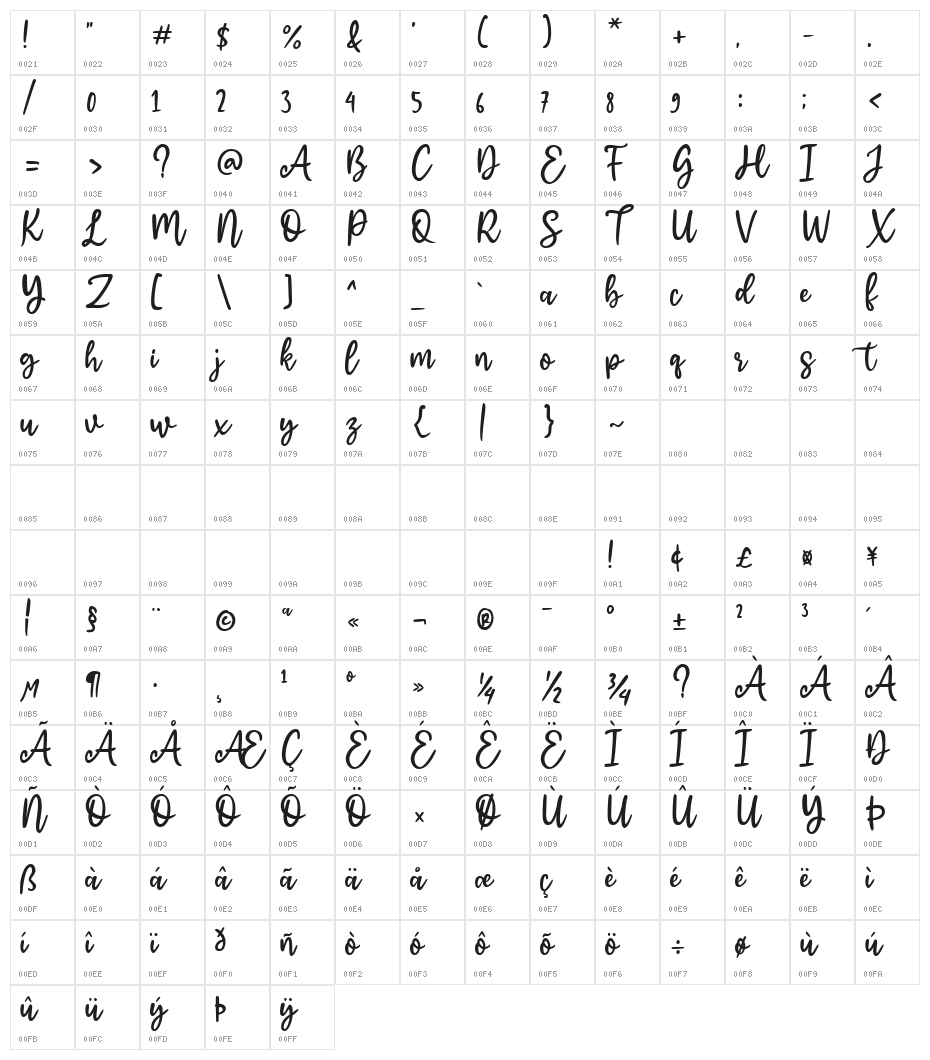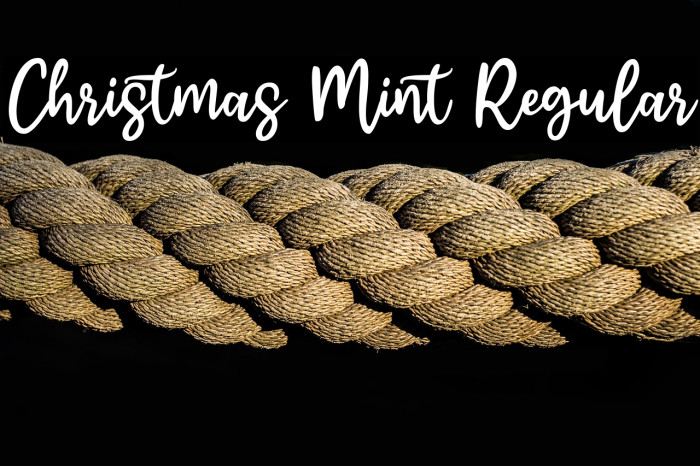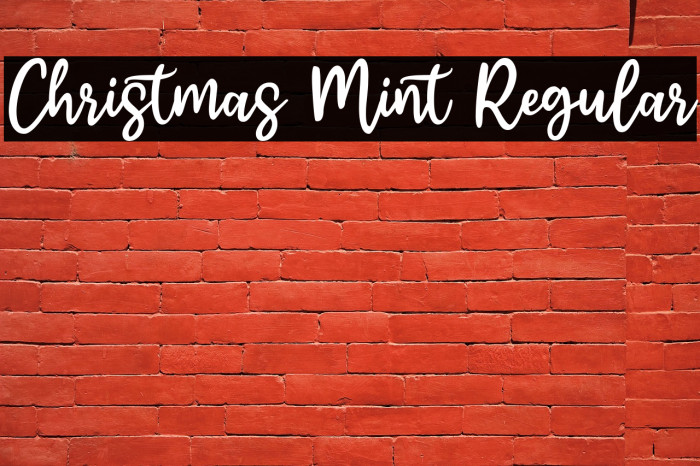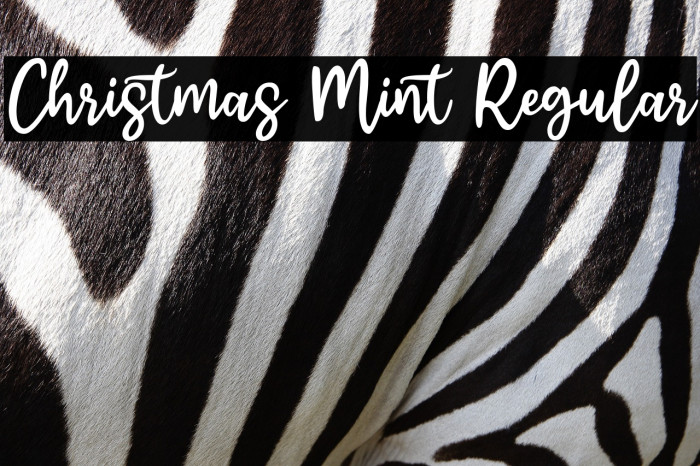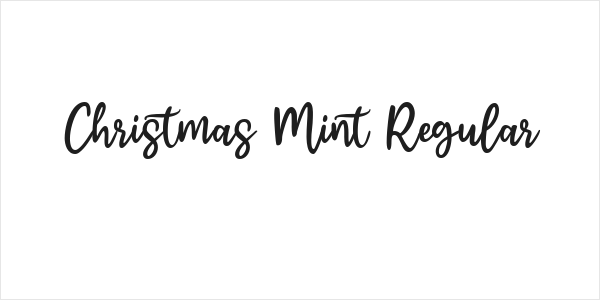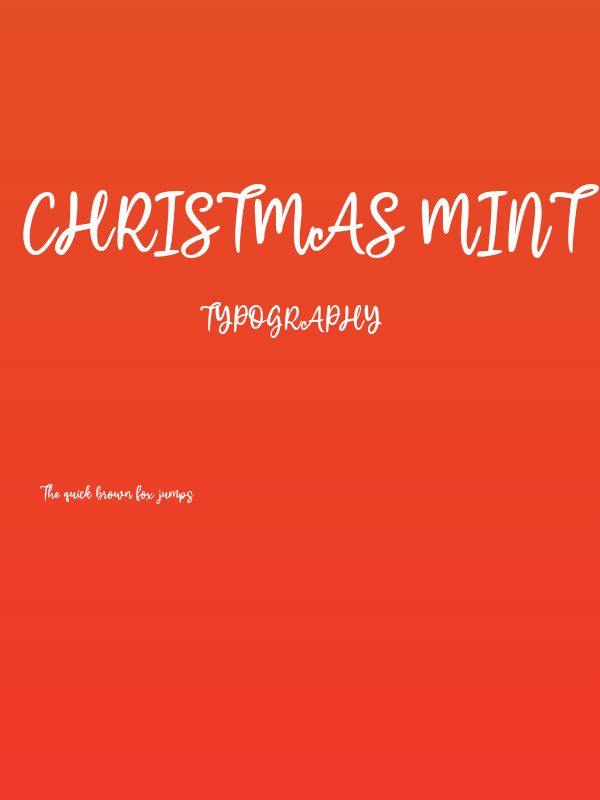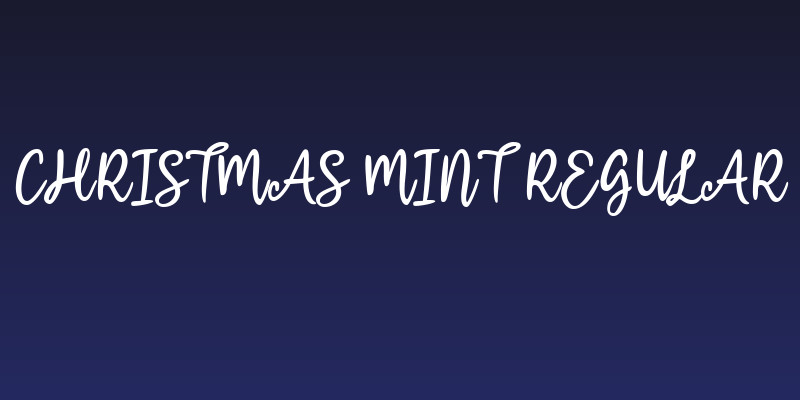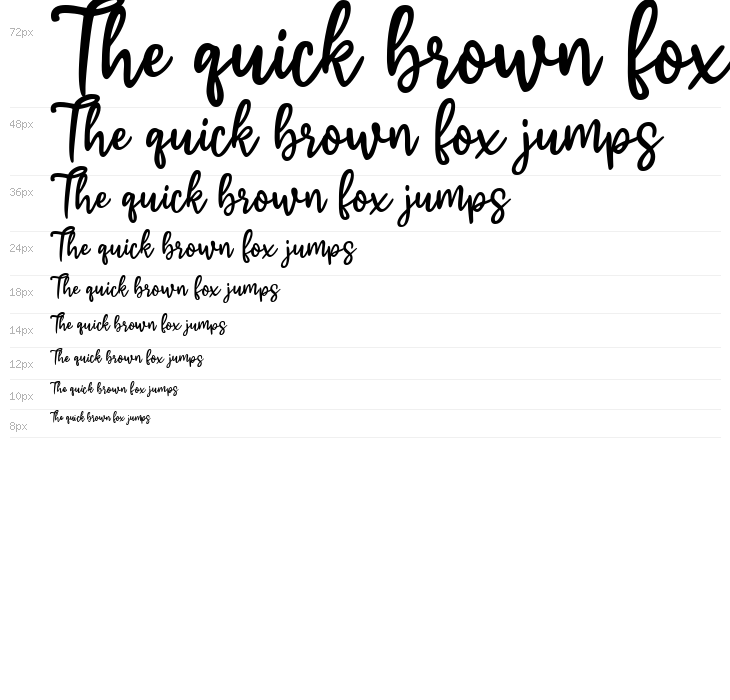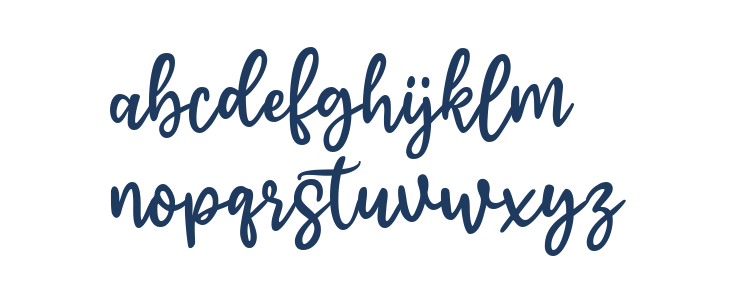
Christmas Mint Regular Font
Christmas Mint Regular Description
This font exudes a playful and festive charm, characterized by its flowing, cursive script style. The letters are interconnected, creating a sense of continuity and elegance. The uppercase letters are bold and prominent, while the lowercase letters maintain a consistent flow with subtle loops and curves. The numbers are clear and easy to read, complementing the overall style. Special characters are creatively integrated, maintaining the whimsical and decorative nature of the font. This design is perfect for capturing a joyful and celebratory mood, ideal for holiday-themed projects.
| Proposed Projects | Ideal for holiday cards, festive invitations, seasonal branding, and decorative signage. |